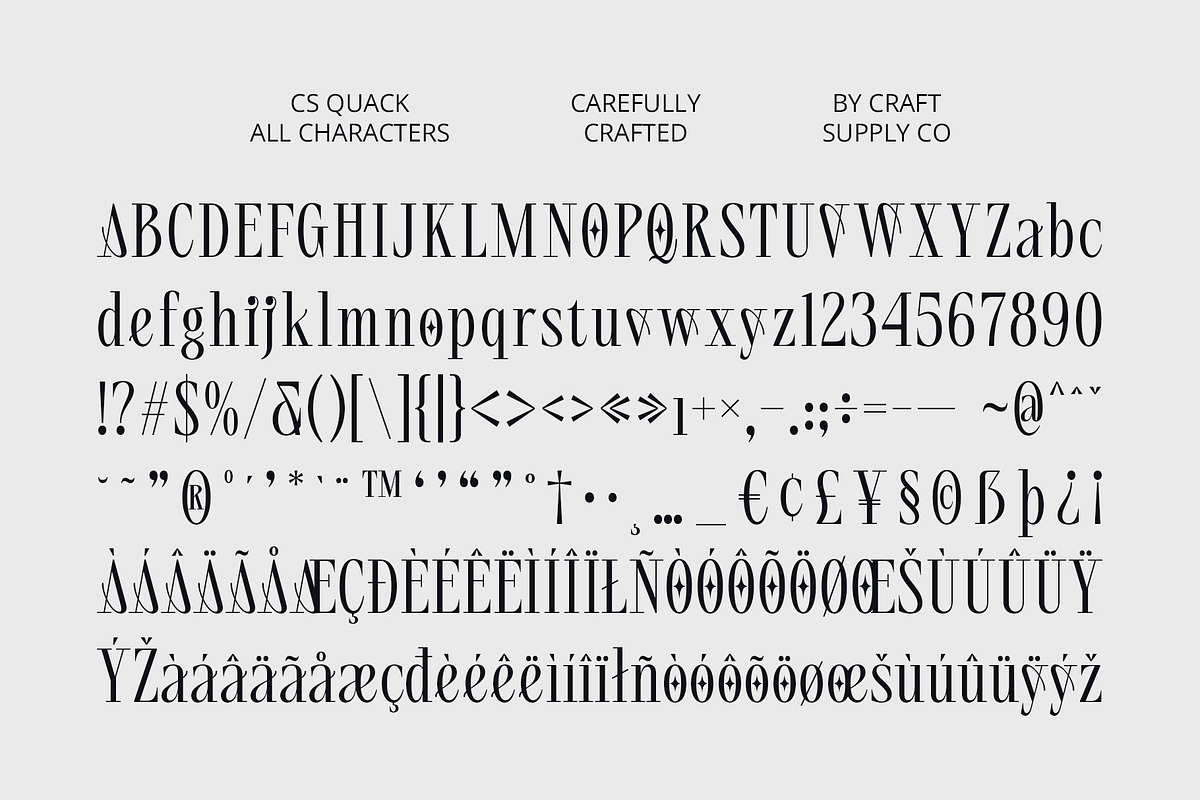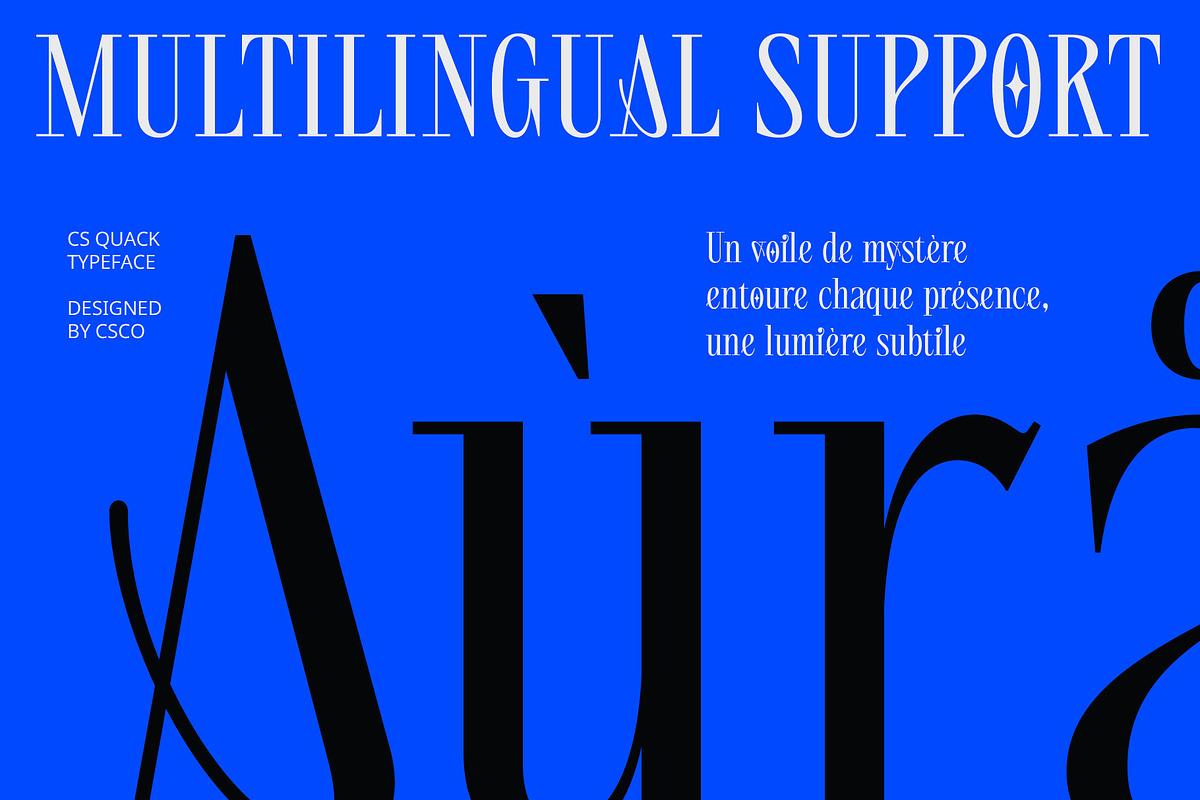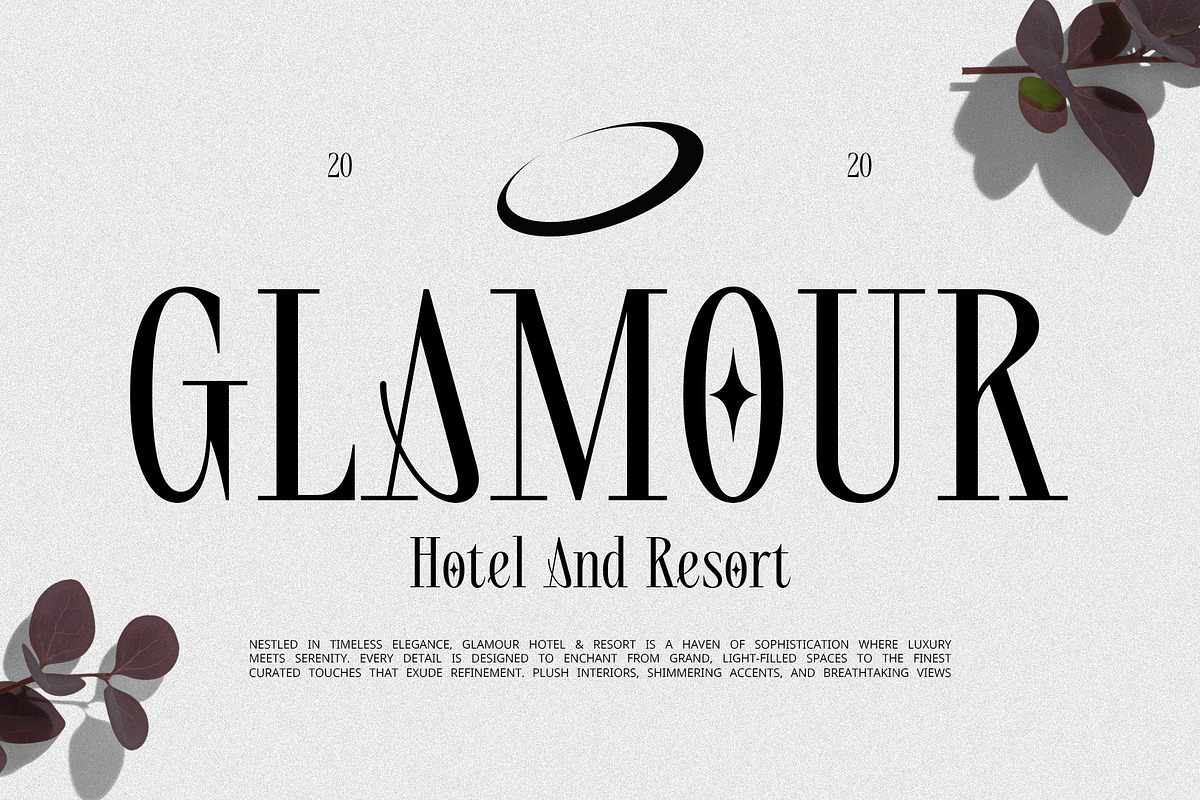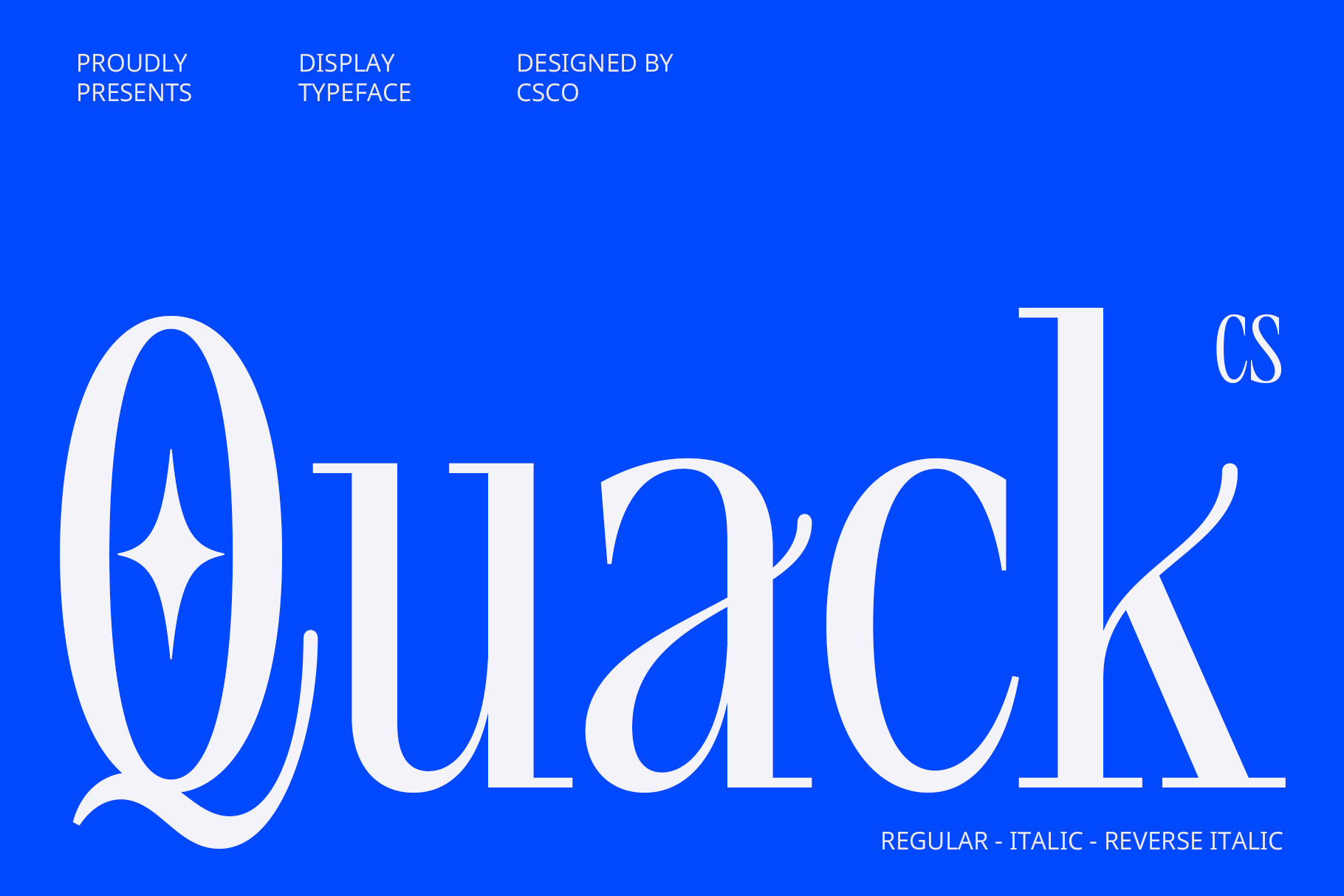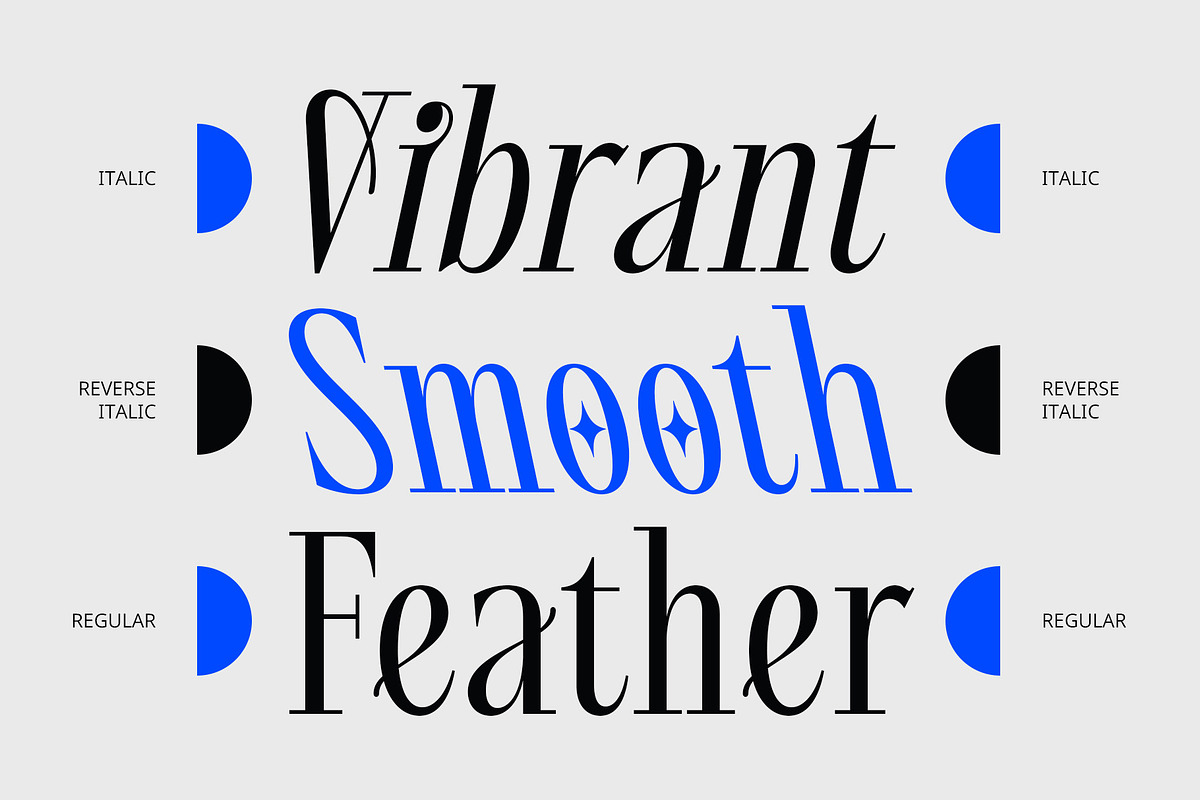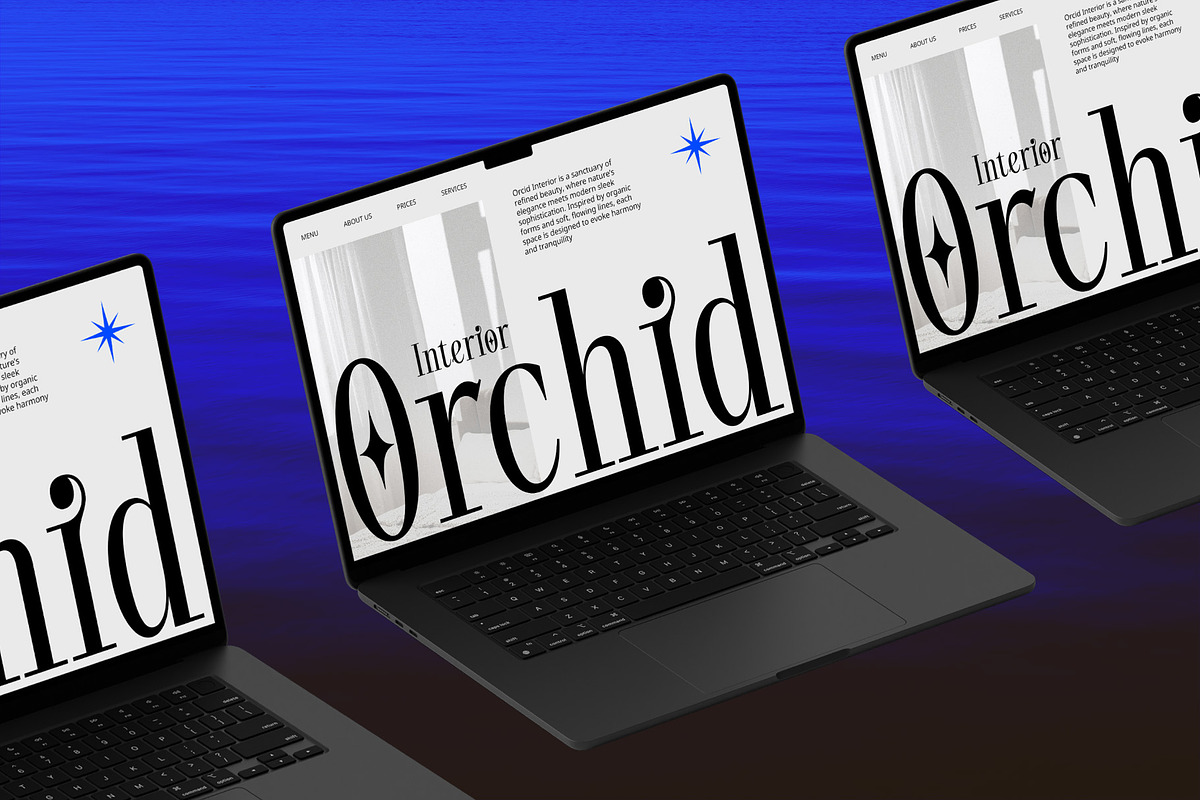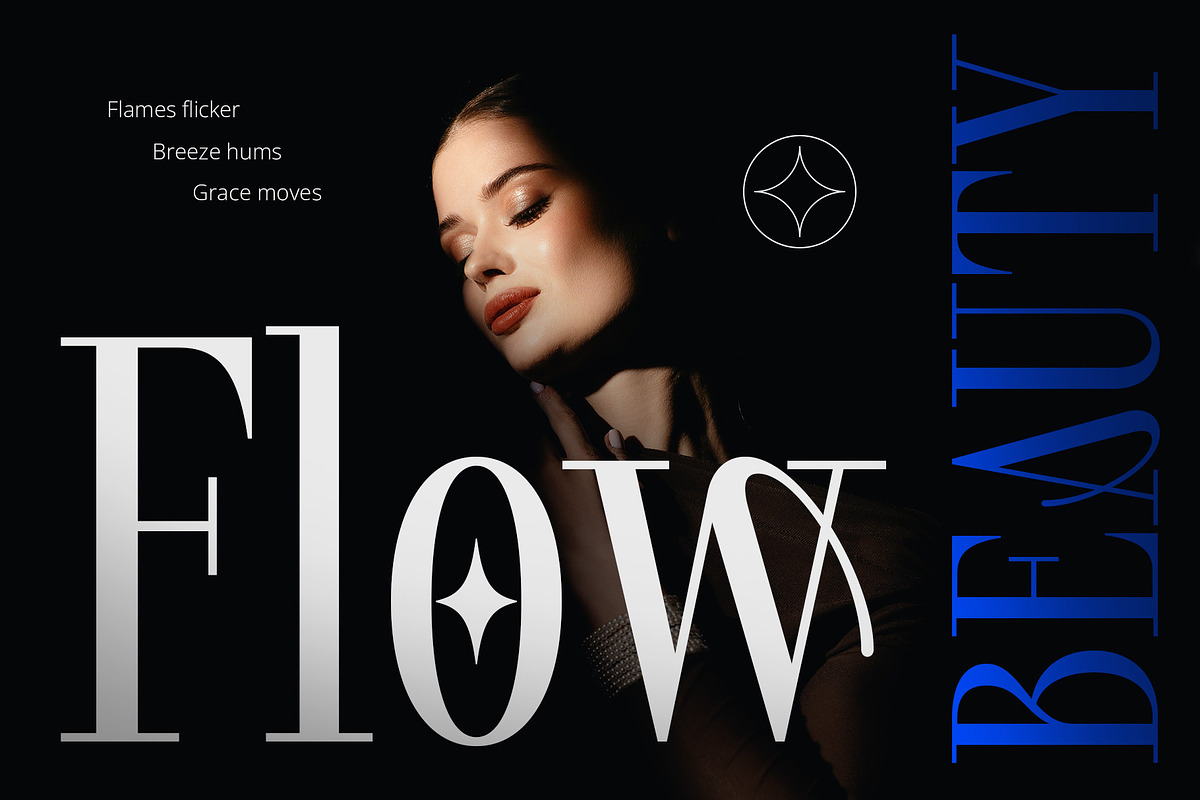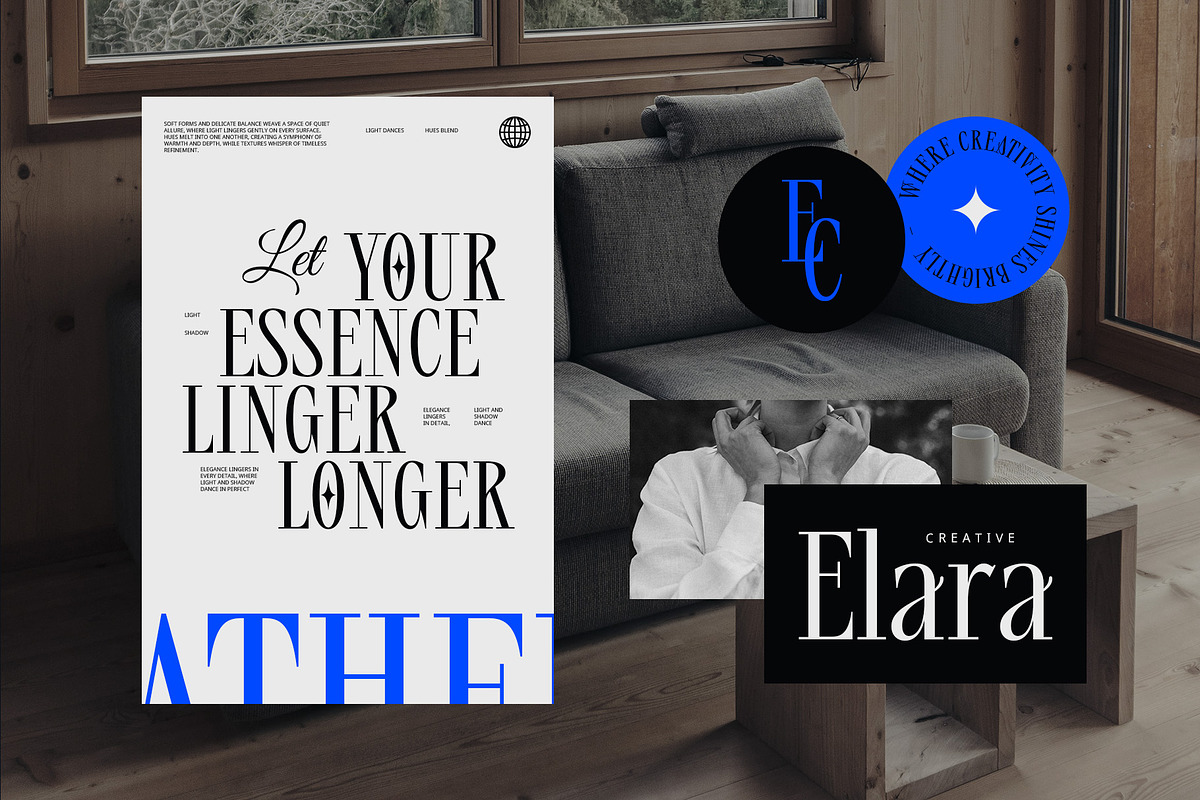
CS Quack – Aesthetic Font
CS Quack – A Modern Aesthetic Serif Font
Elegant, Minimalist, and Sophisticated Design CS Quack is a modern classic serif font that blends contemporary aesthetics with refined elegance. Featuring a condensed proportion, clean lines, and sharp serif details, this font exudes luxury, professionalism, and exclusivity. Its sleek structure enhances readability and sophistication, making it a perfect choice for high-end branding, editorial layouts, and premium visual identities.
Perfect for Luxury and Editorial Designs Designed with aesthetic minimalism in mind, CS Quack offers a timeless yet modern appeal that works beautifully in fashion magazines, luxury packaging, corporate branding, and professional presentations. Its graceful and structured letterforms create an impression of refinement and confidence, ideal for designs that need to appear polished and upscale.
Balance Between Classic and Modern Typography While CS Quack carries the essence of traditional serif fonts, its contemporary styling and condensed proportions make it feel fresh and modern. This balance allows it to fit seamlessly into both classic and cutting-edge designs, providing versatility for editorial content, website headlines, product labels, and elegant invitations.
Timeless Appeal for Sophisticated Visuals CS Quack is more than just a font—it’s a statement of elegance and simplicity. Whether used for branding, advertising, or high-end product presentations, its aesthetic charm and modern refinement ensure a lasting impression, making it an essential choice for designers who value style, sophistication, and visual excellence.
- CS Quack Regular
- CS Quack Italic
- CS Quack Reverse Italic